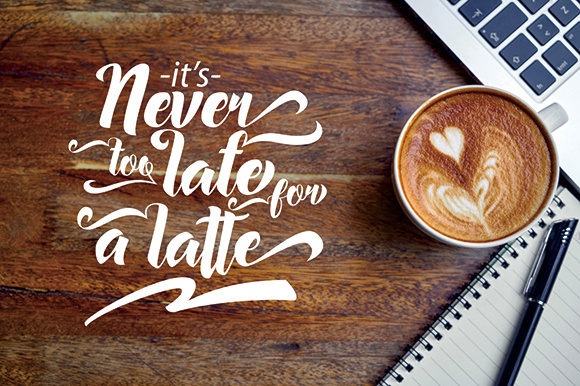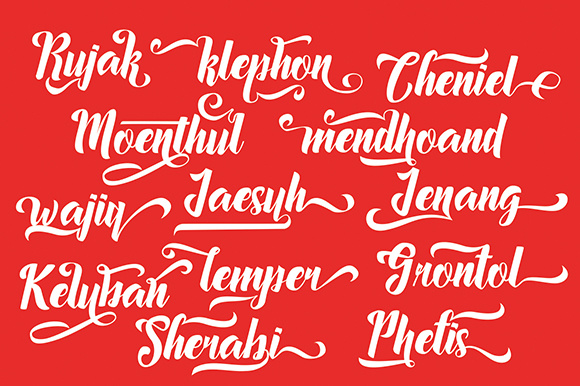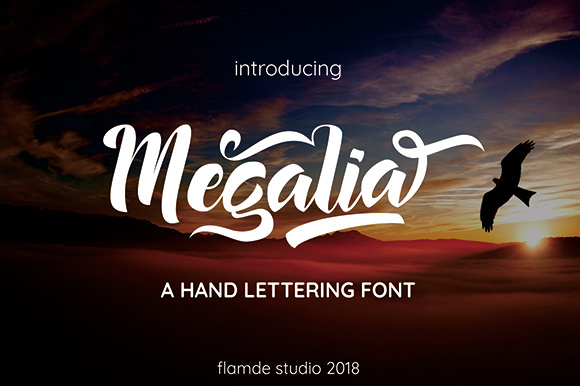
Megalia Script Font
Introducing Megalia. It is was designed by Flamde Studio. The Megalia is a beautiful hand lettering font. It has an elegant yet striking look, which makes it perfect for a wide range of designs.